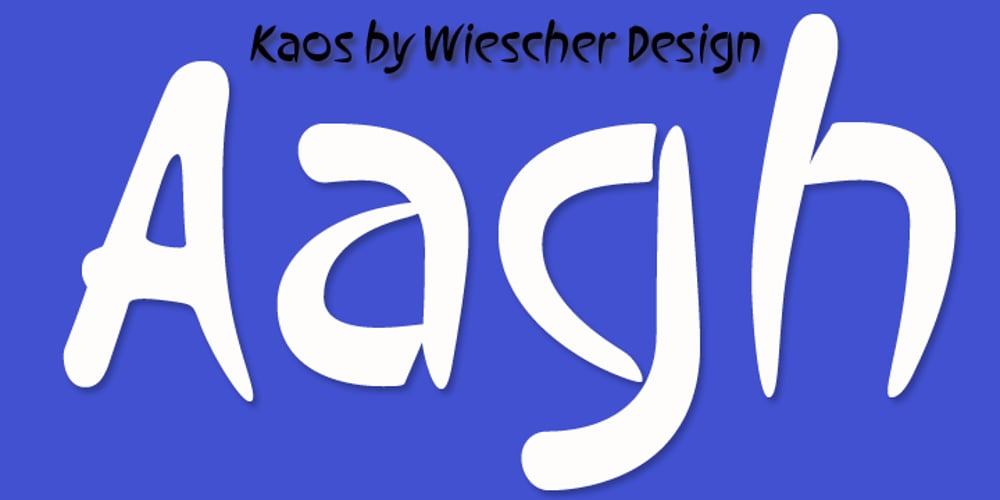
Kaos Font Family was designed by Gert Wiescher and published by Wiescher Design. Kaos contains 1 styles and family package options. On a huge garbage bin in Lisbon I saw the sentence, “Perdidos no kaos”, which means lost in chaos and I really liked the rough stenciled lettering. Back home I designed a typeface that wasn’t quite as chaotic as the lettering on the garbage container. Yours – always on the lookout for great typefaces – Gert Wiescher